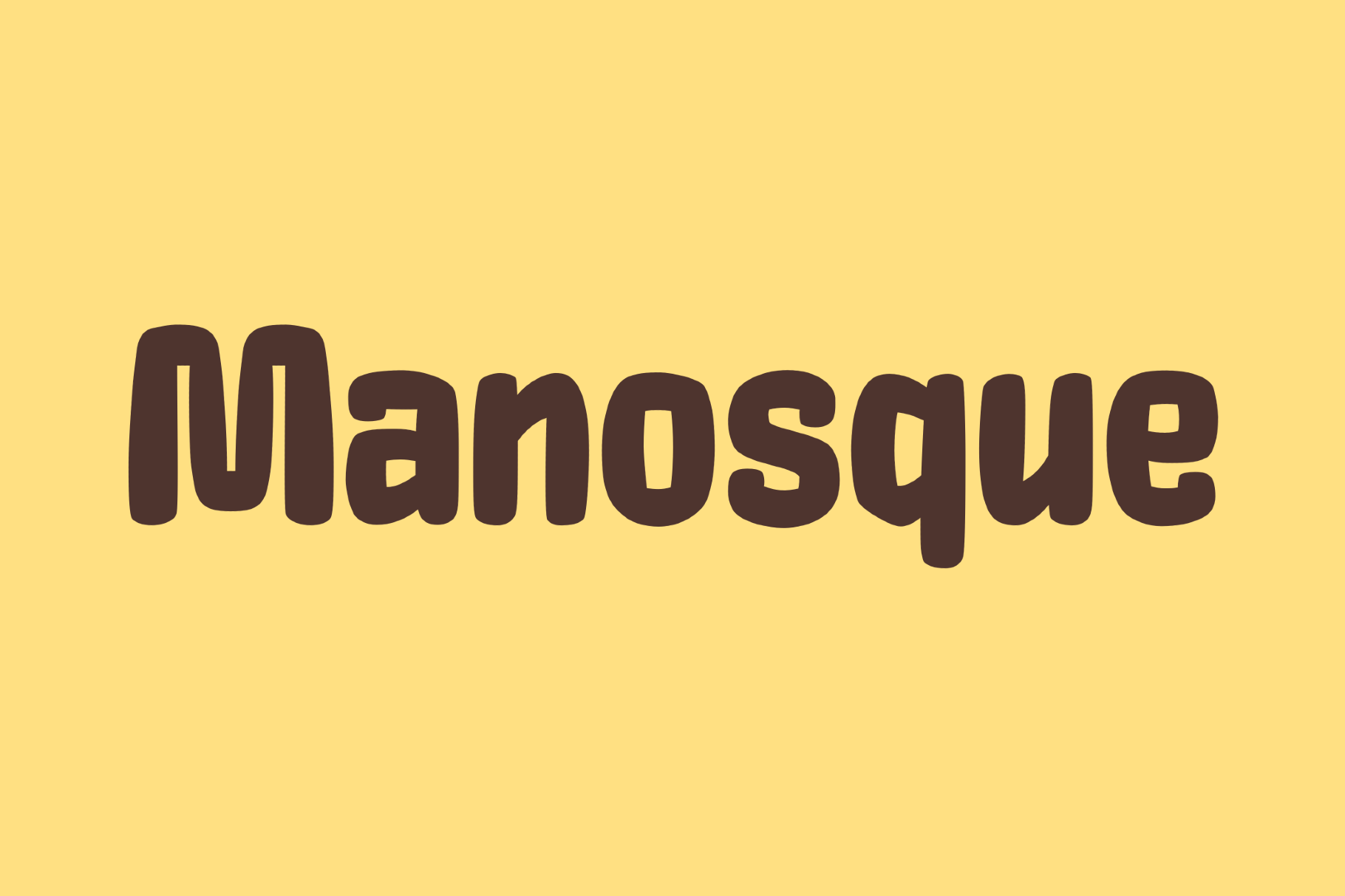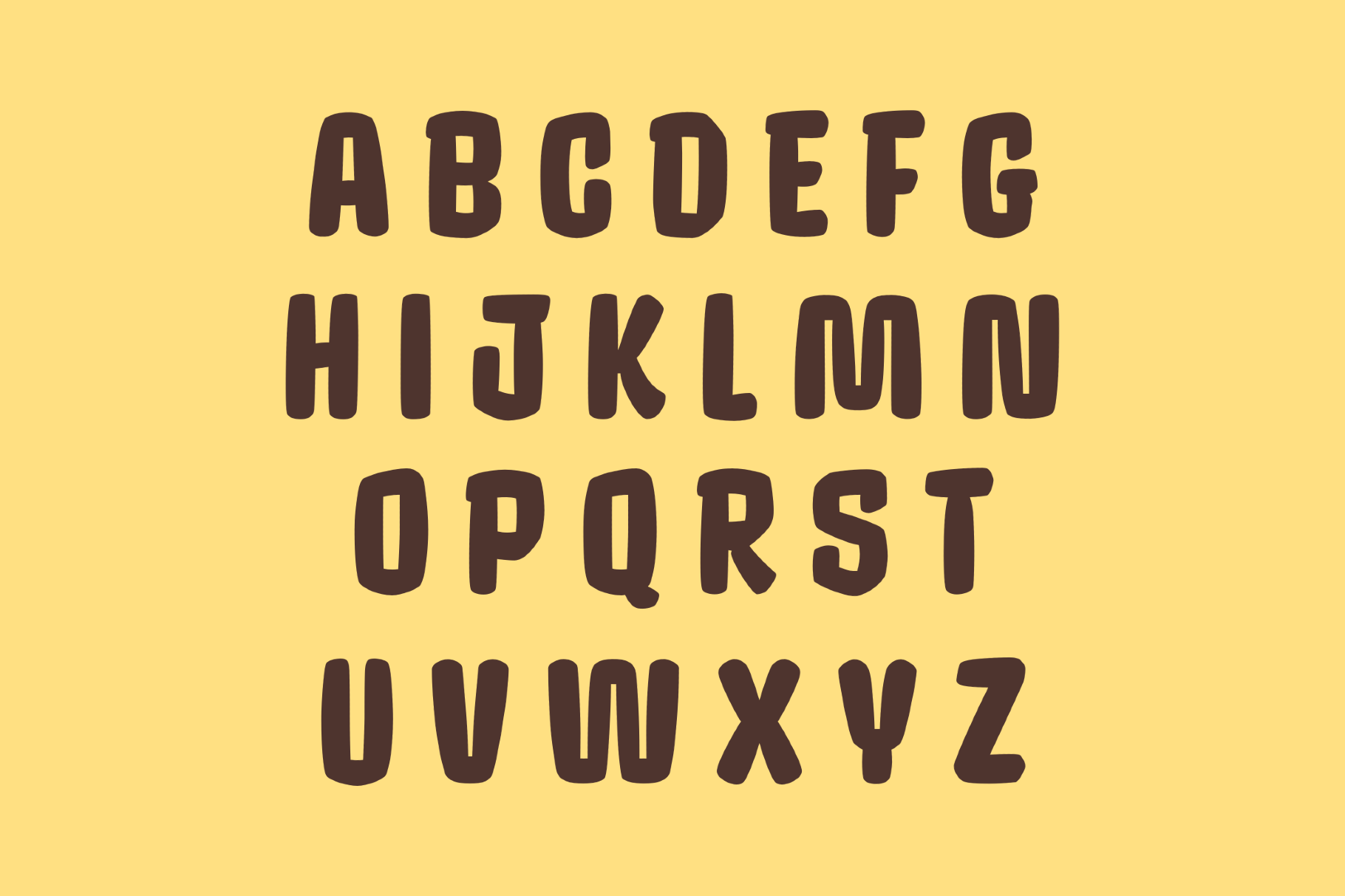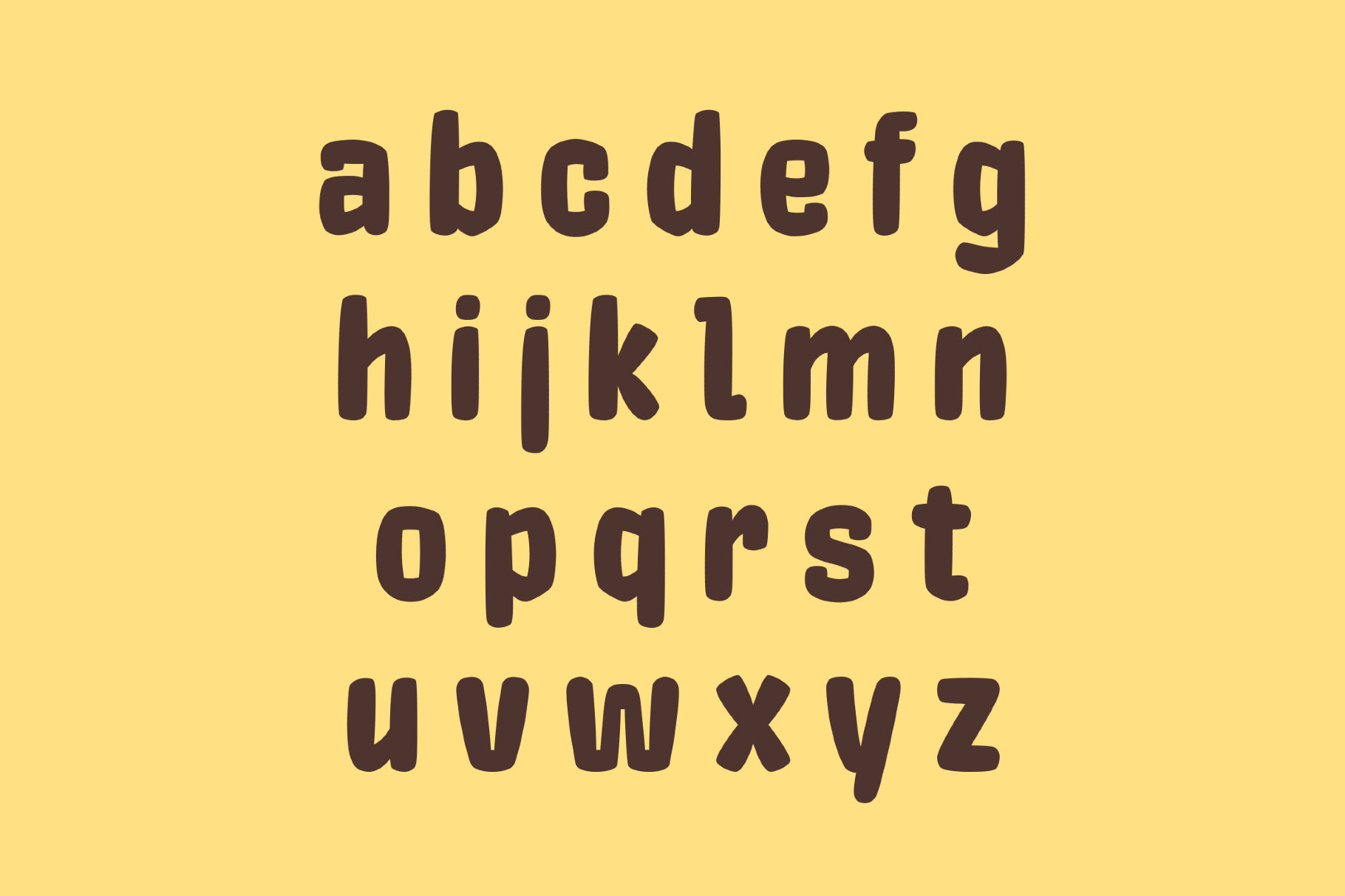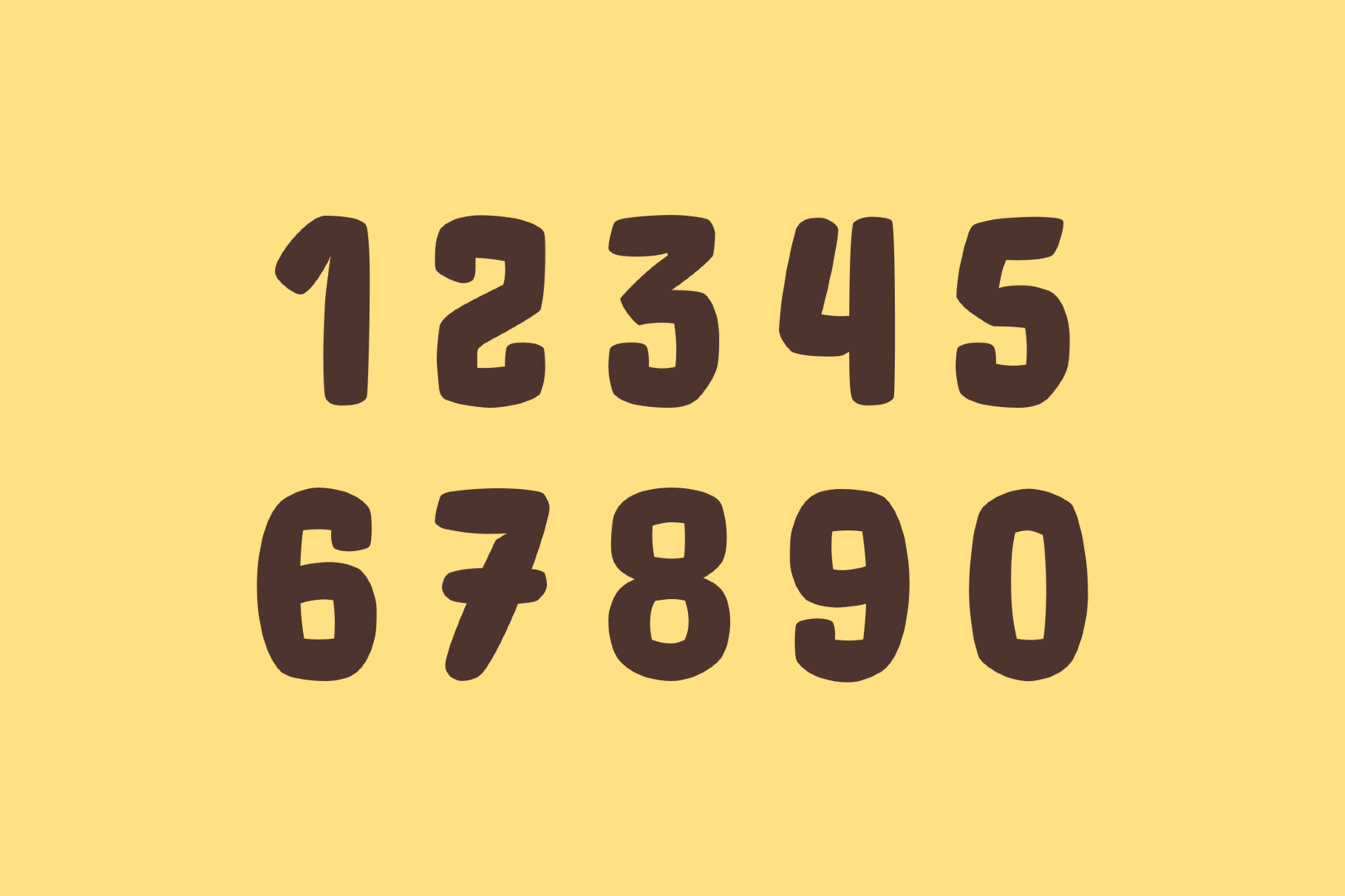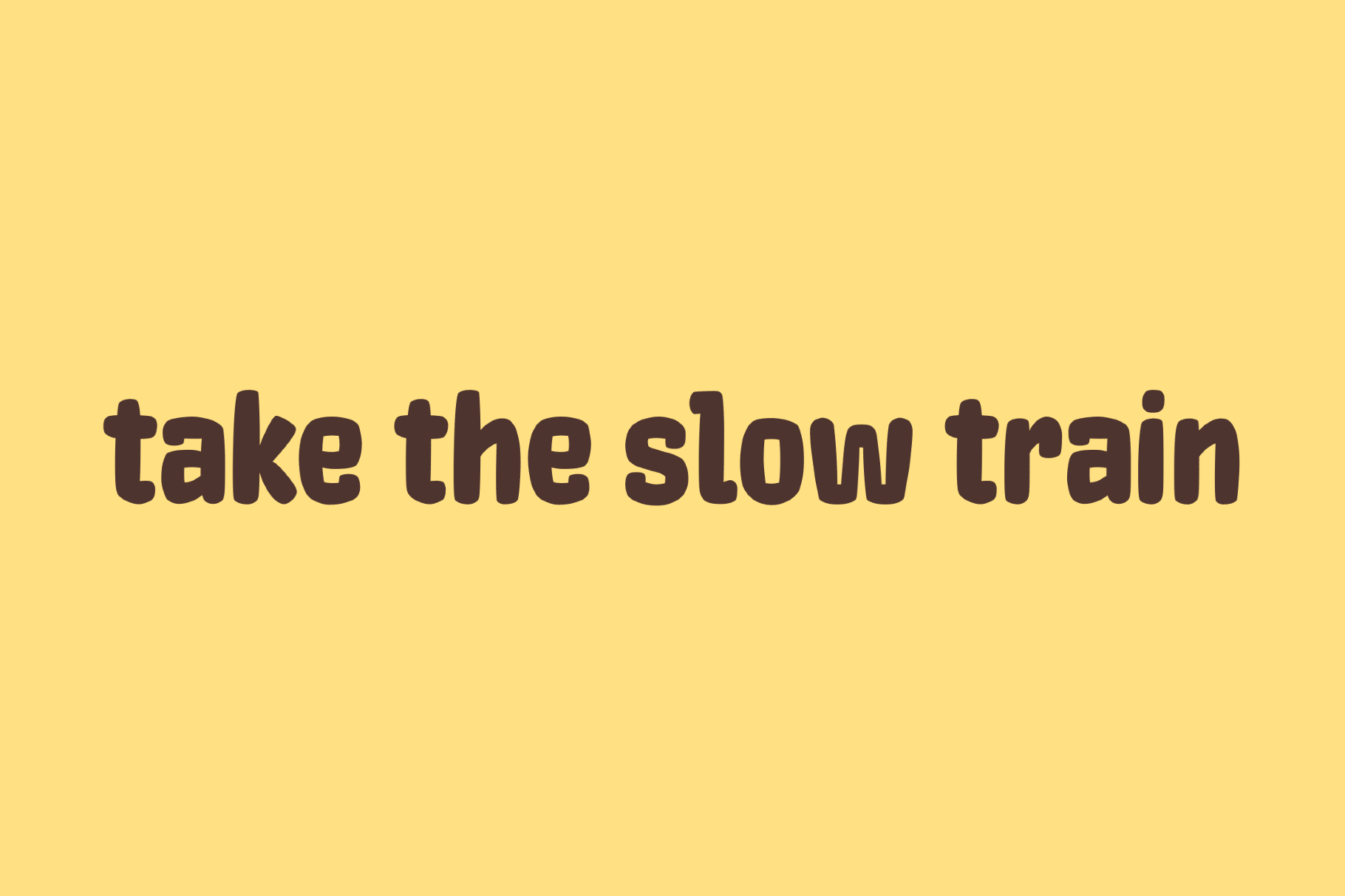
Manosque - Bold Chunky Font
Manosque is a plump display sans with soft corners and a relaxed silhouette. It recalls 1970s package lettering, children’s paperbacks and sunny souvenir graphics from Mediterranean resort towns. This font is a strong fit for café identities, ice cream packaging, poster titles, toy branding, sticker sets, summer campaigns and social artwork.